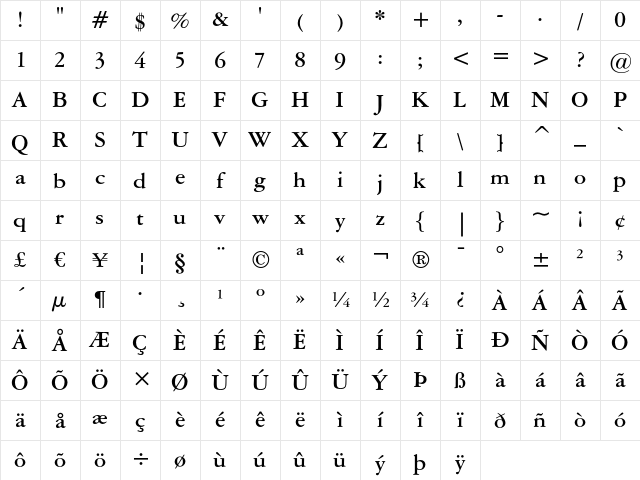
American Garamond Bold
American Garamond Family
American Garamond Bold
Design Context for American Garamond
American Garamond is a composed and adaptable typeface that performs quietly and consistently across a wide range of design contexts. Its bold stroke weight gives it real presence on the page.
Pro Tip: Use American Garamond in both headline and body roles to test its range before committing to a single application.